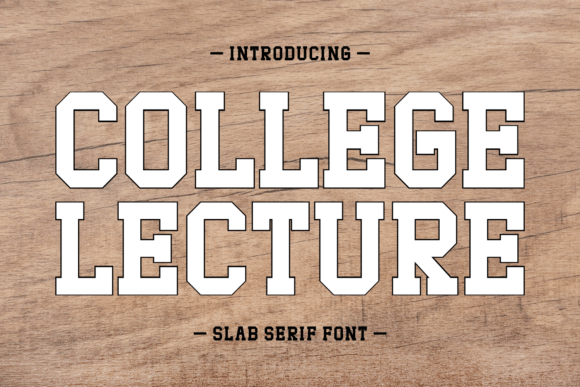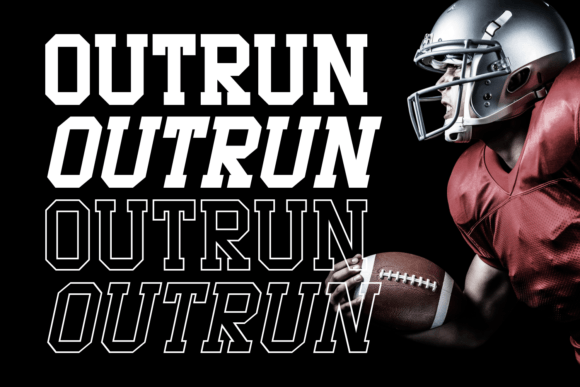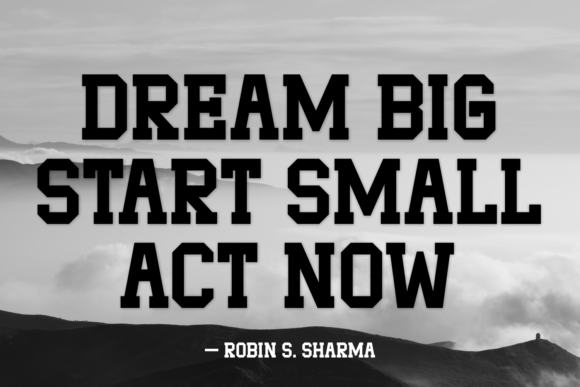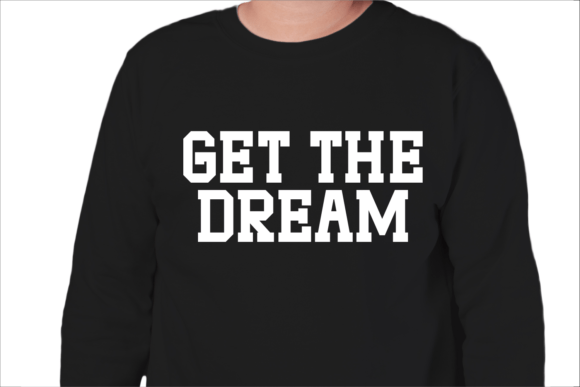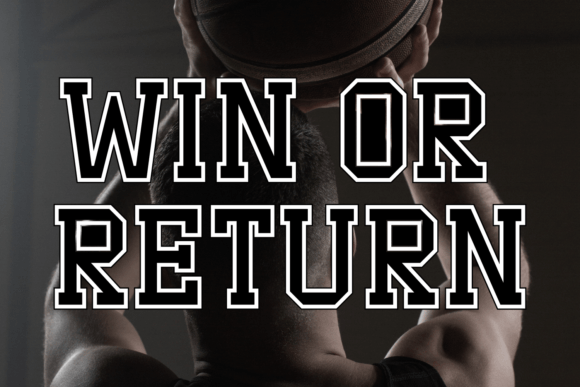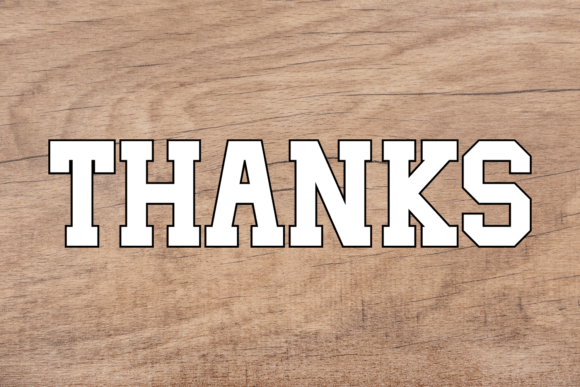
College Lecture Font
About College Lecture Font
College Lecture is a sturdy and straightforward slab serif font, perfect for adding a classic touch to your text. With a strong and confident appearance, this font is designed to make your words stand out, making it an excellent choice for academic materials, presentations, or any project where clarity and professionalism are key. Elevate your typography with the timeless and reliable style of College Lecture for a polished and academic look.